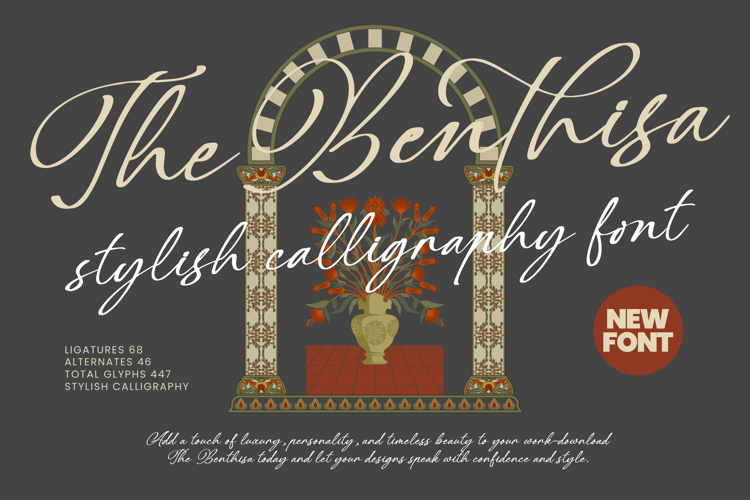
Benthisa Font
Benthisa - Stylish Calligraphy Font
Discover the ultimate fusion of classic elegance and contemporary flair. Benthisa - Stylish Calligraphy Font is a breathtaking script typeface, designed to elevate mundane text into unforgettable visual statements. Its flowing, high-contrast strokes emulate genuine hand-lettering, providing an authentic sense of craftsmanship and timeless beauty. This font is defined by its sweeping ascenders and detailed terminal forms, guaranteeing an instantly recognizable, premium signature style.
Unlock unparalleled creative potential with its expansive character set. Featuring 68 stylistic ligatures and 46 alternates, Benthisa - Stylish Calligraphy Font offers deep customization, allowing designers to craft truly unique and fluid layouts. With its extensive multilingual support, Benthisa - Stylish Calligraphy Font adapts seamlessly across global markets, making it incredibly versatile for international projects. This comprehensive language capability ensures your global campaigns maintain consistent sophistication.
Elevate your brand identity with an undeniable sense of prestige. Benthisa - Stylish Calligraphy Font is perfect for projects demanding an air of exclusivity and sophistication. Its refined aesthetic is ideally suited for luxury branding, exclusive invitation suites, high-end product packaging, wedding stationery, and sophisticated editorial headlines. Use this font to convey confidence, quality, and personalized attention in every design.